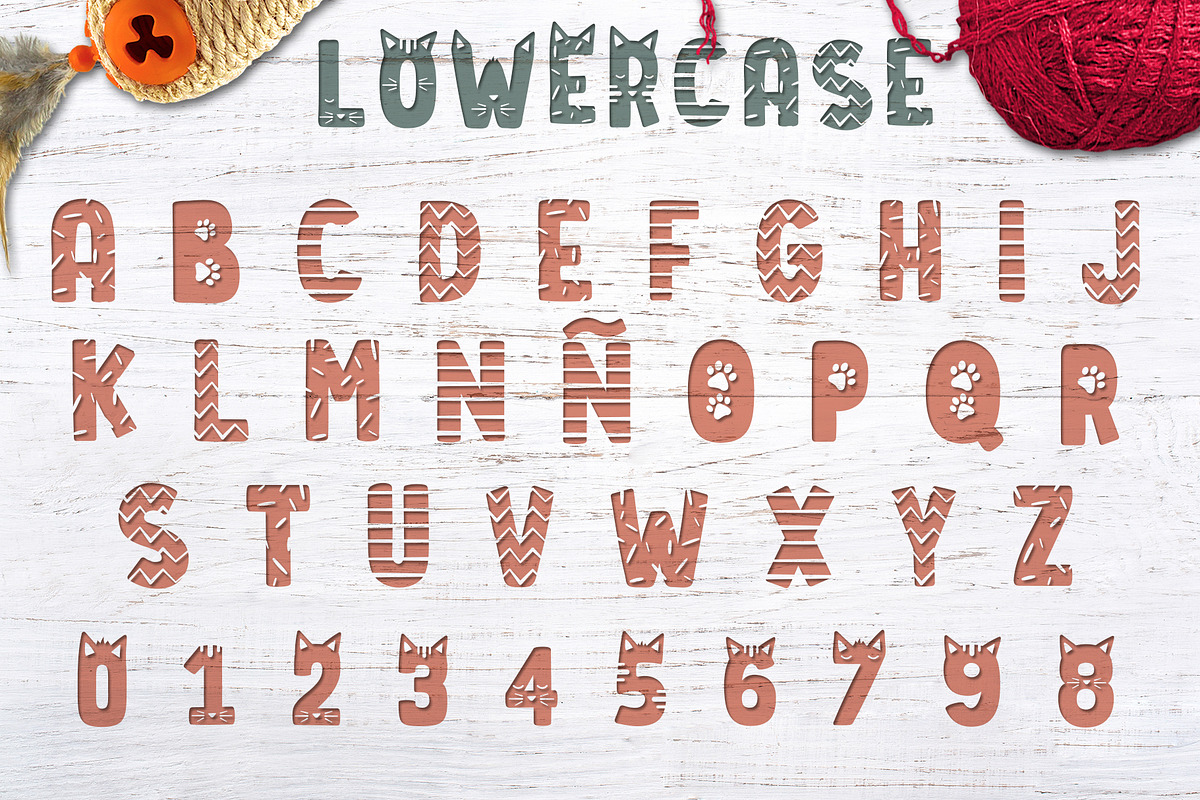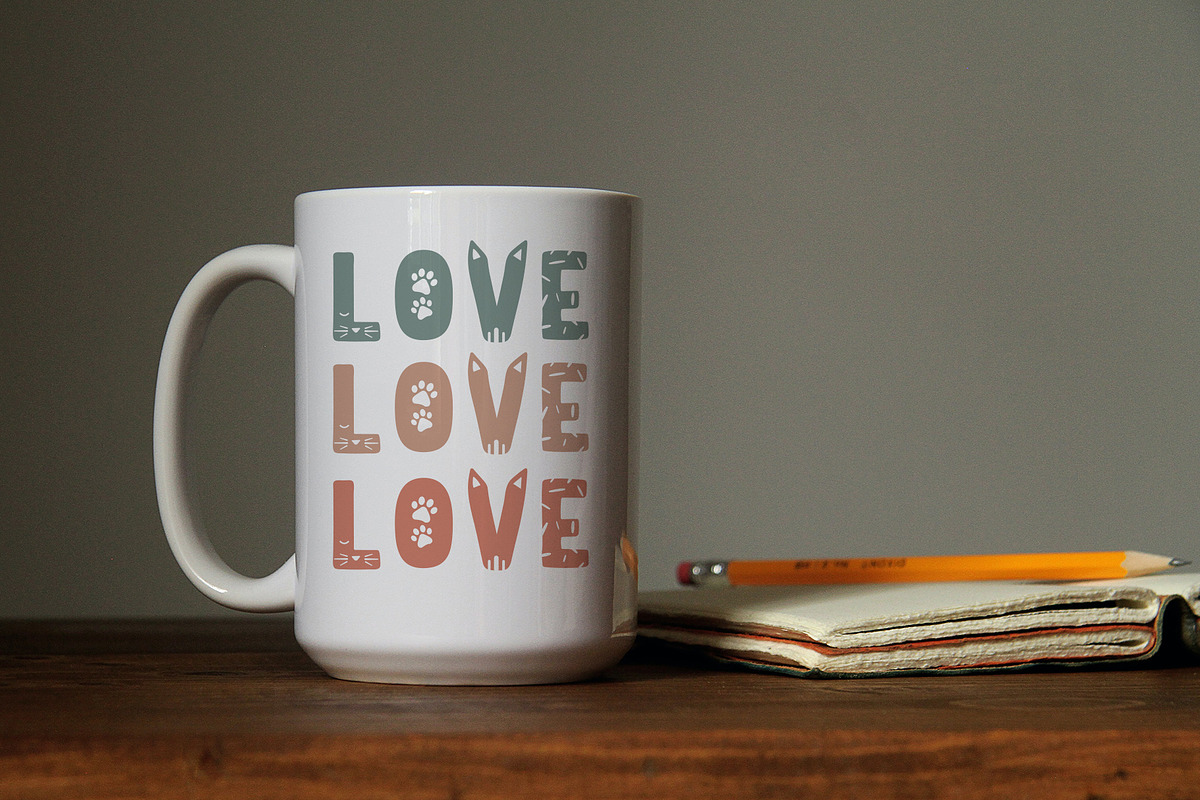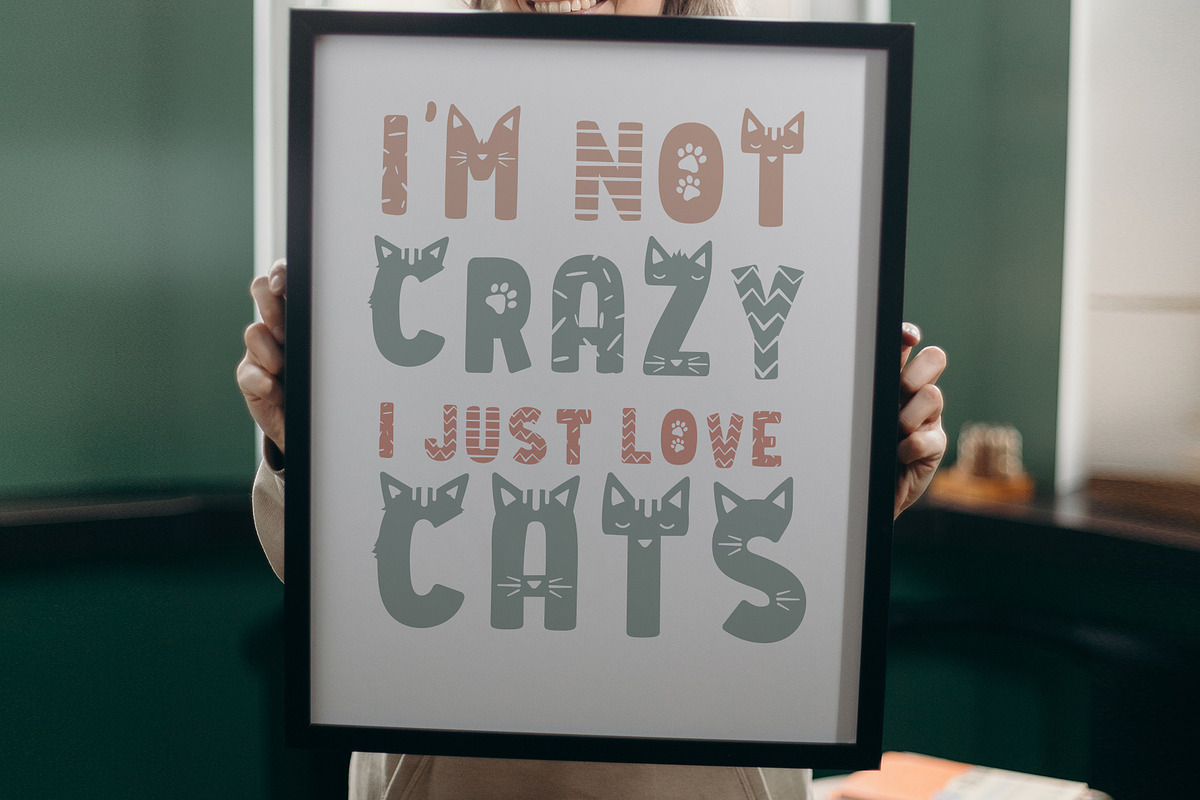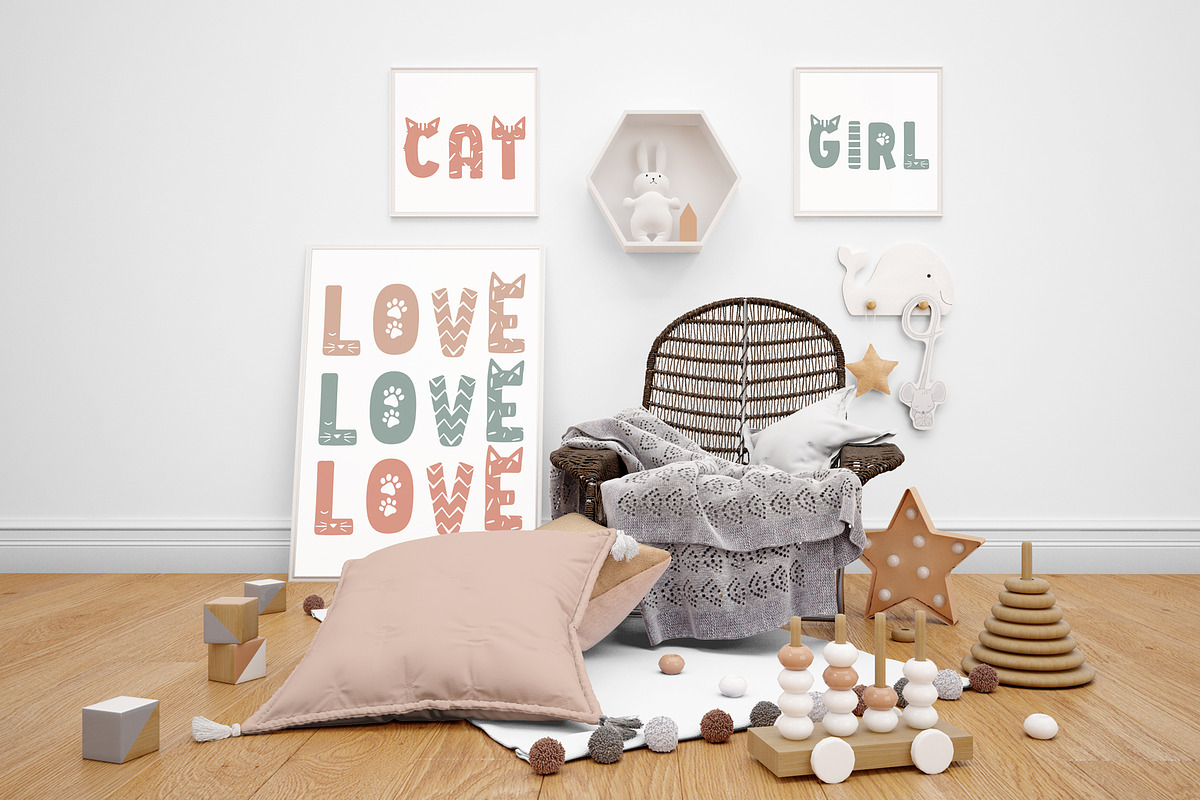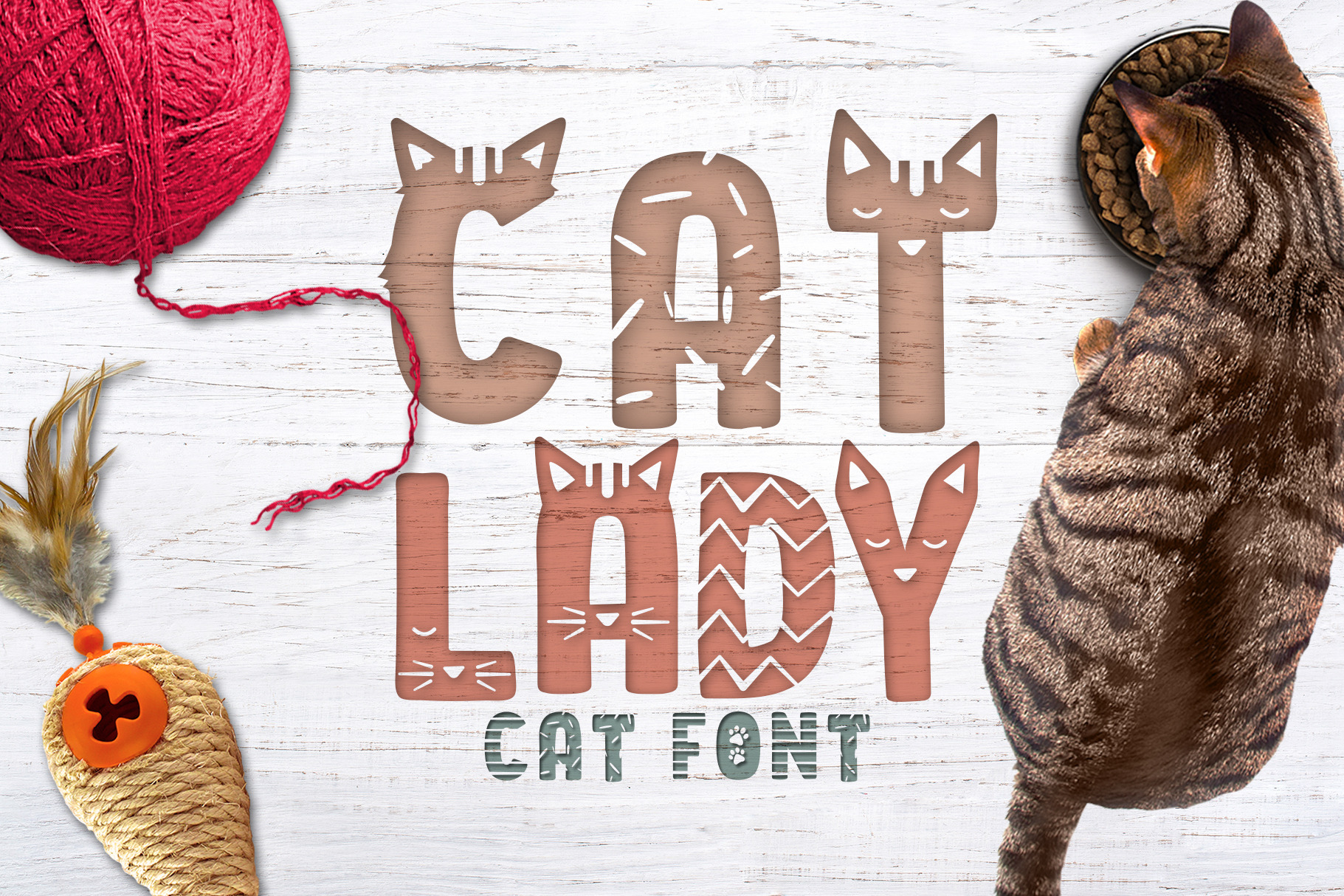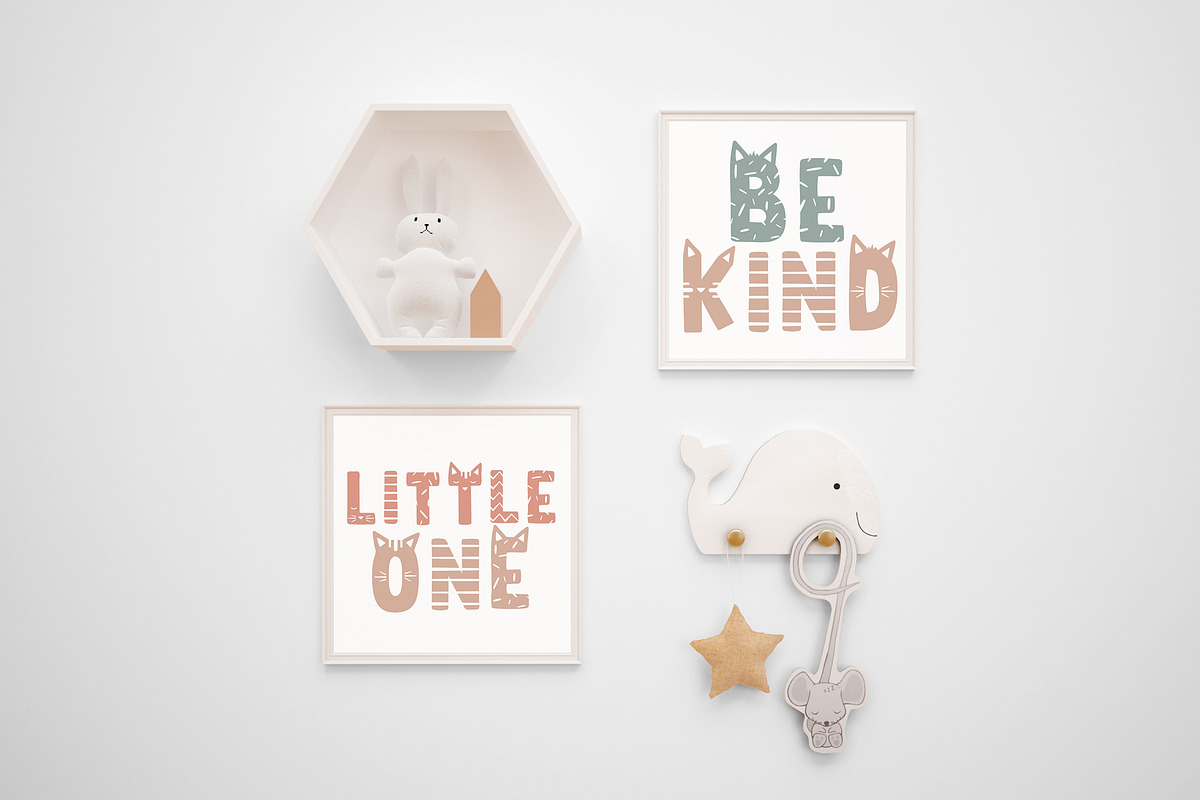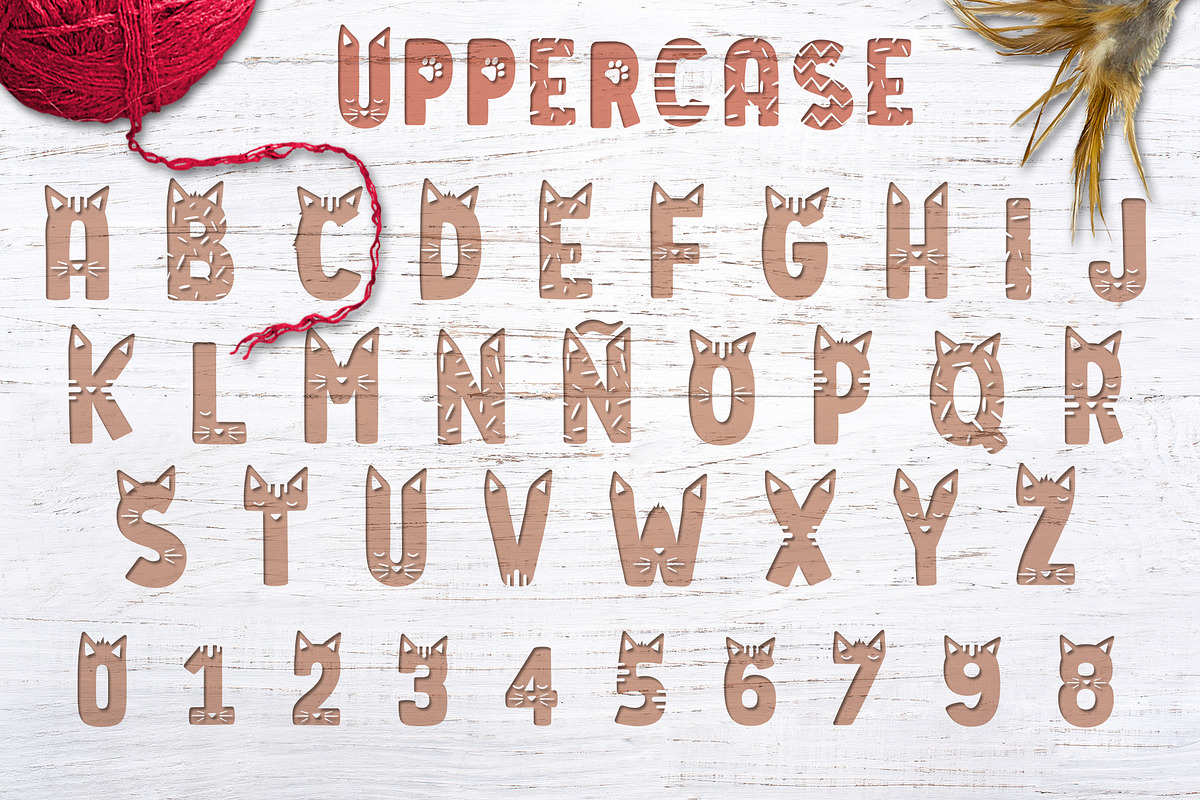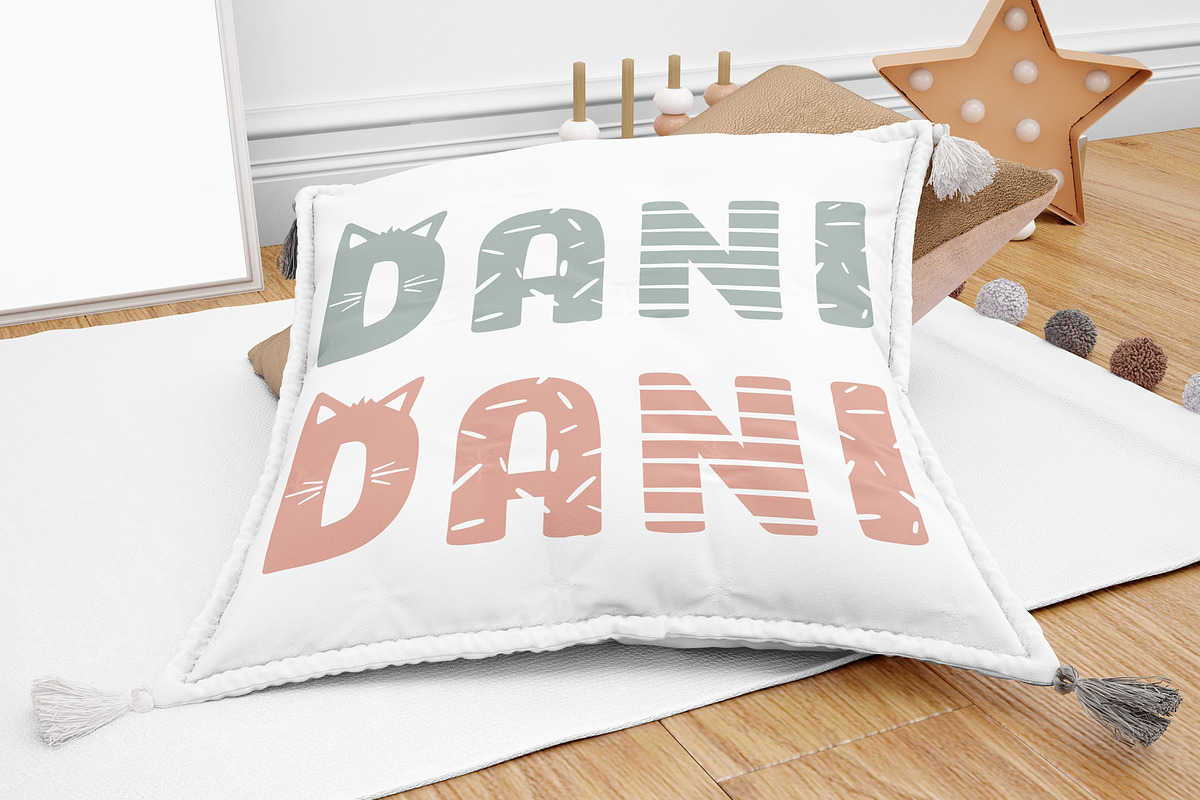
Cat Lady - Cat font
Hey guys, today I present you with the Cat Lady font. This fun childish font will give your projects the playful and youthful touch you desire. This beautiful product is perfect to give kid related creations that cat feel.